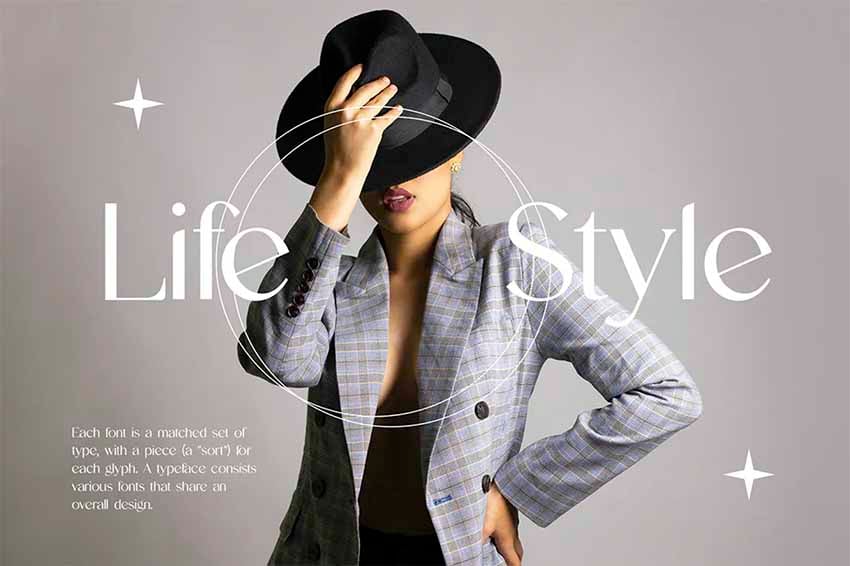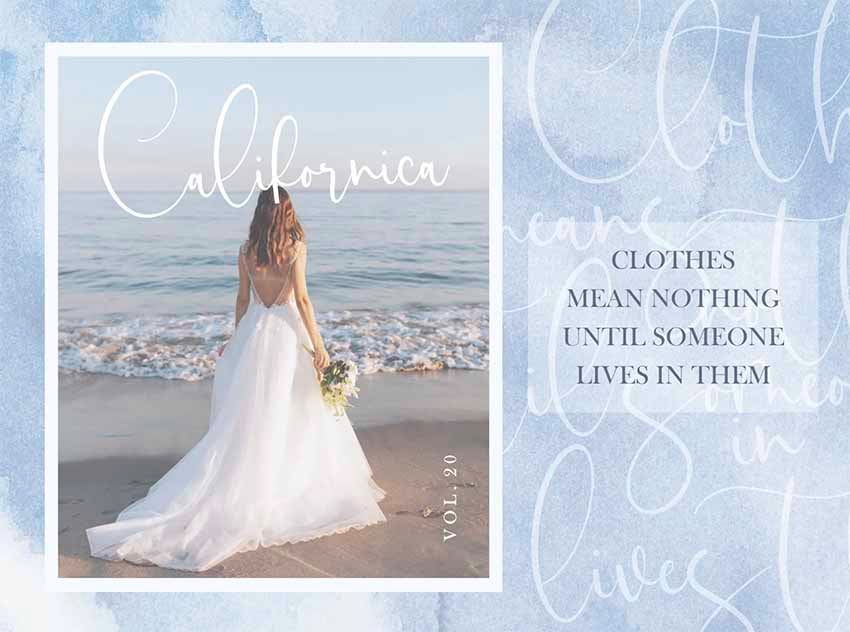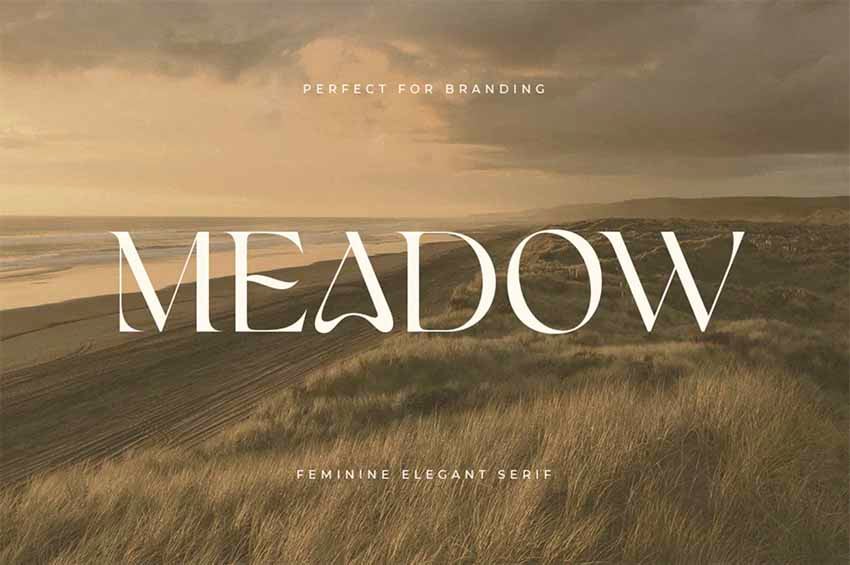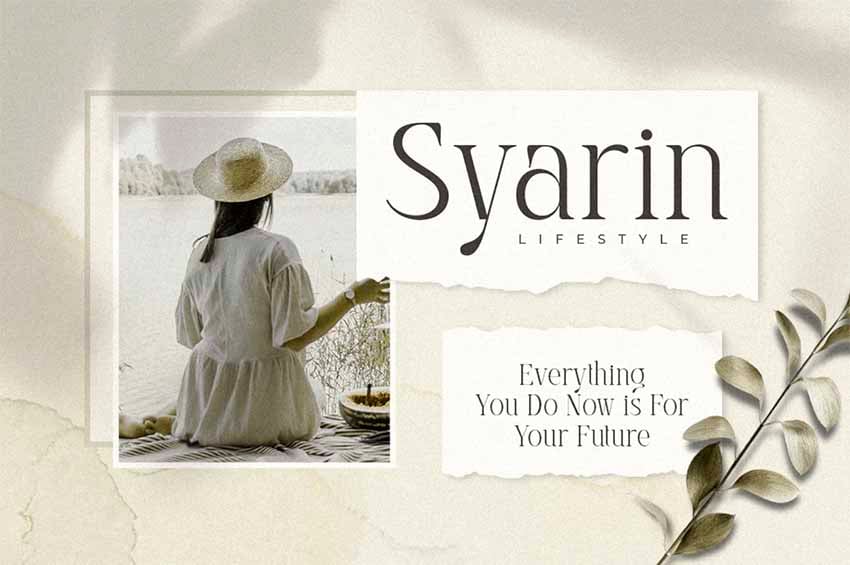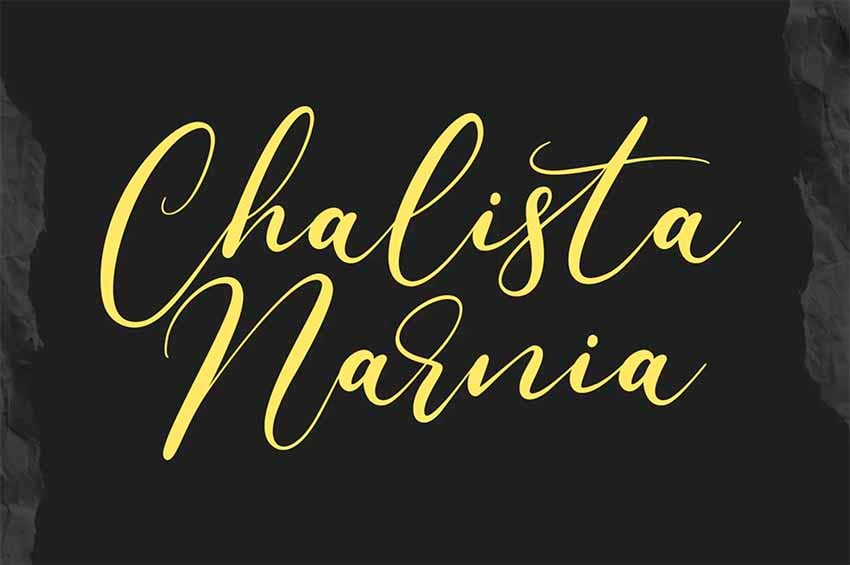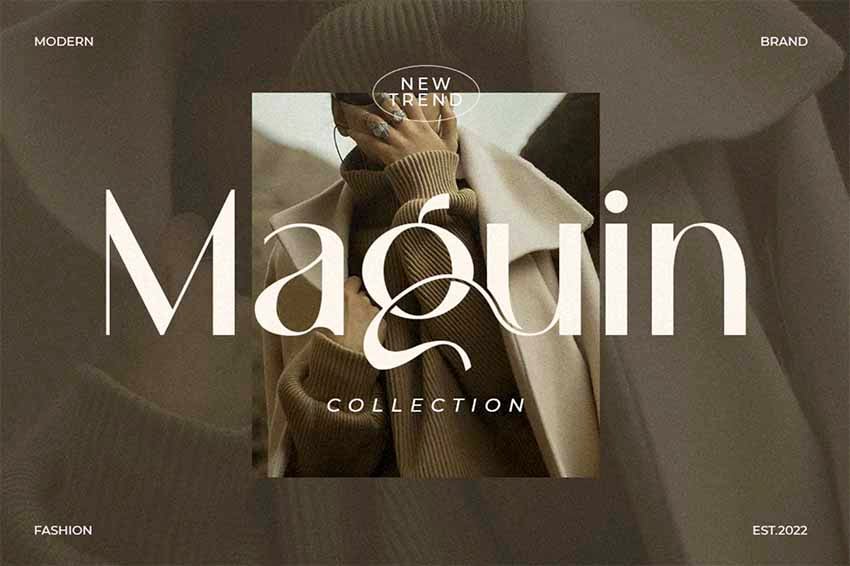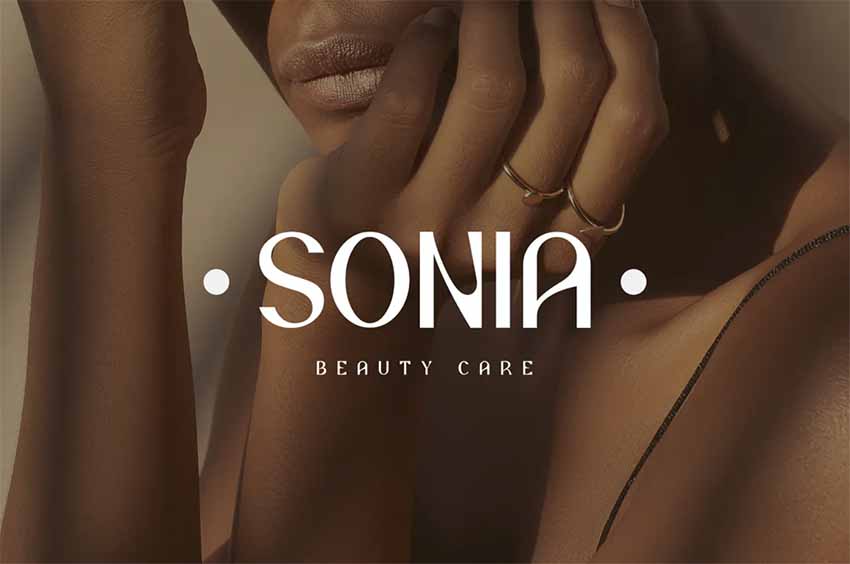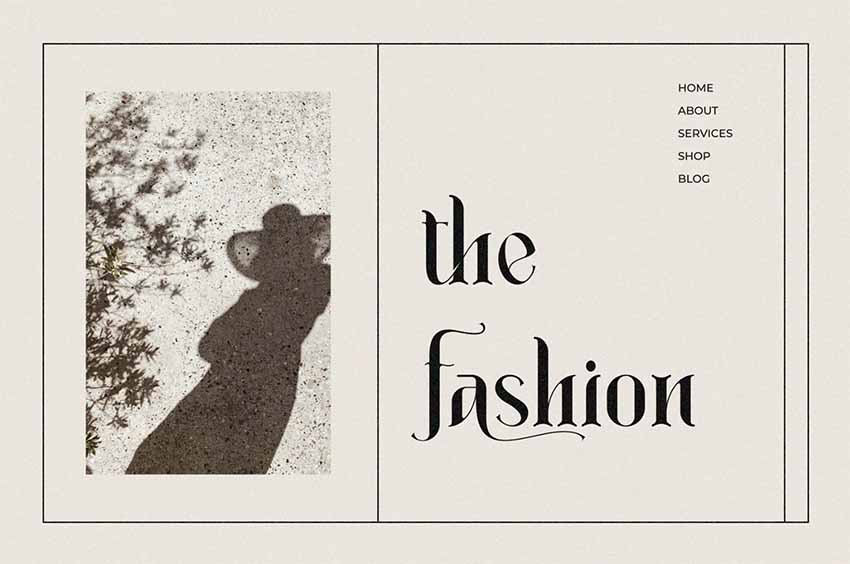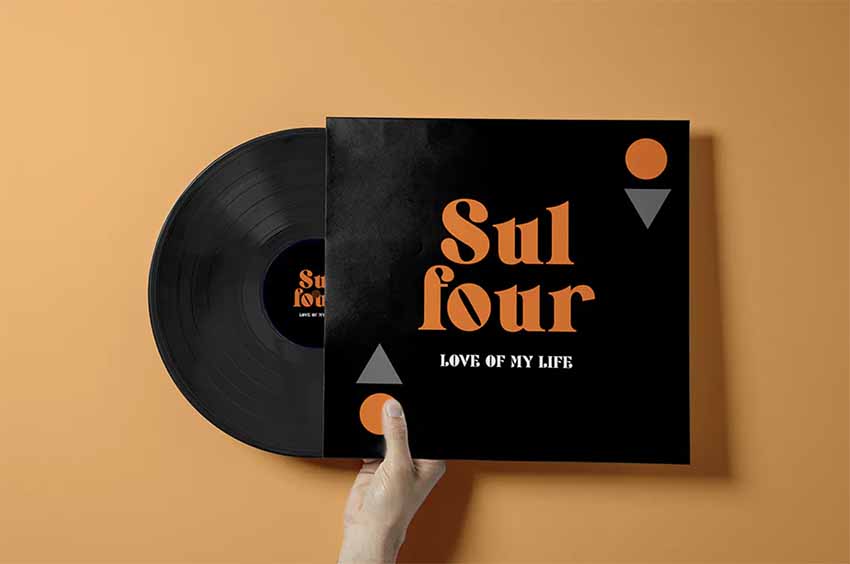
30+ Best Feminine Fonts
Rumie Feminine Modern Fonts
• With its gorgeous flowing lines, Rumie Feminine Modern Fonts is just the font you need when you are looking for a feminine touch.
• Perfect for all types of projects including branding, fashion, logos and more, Rumie includes alternative glyphs so you can create your own unique look.
Feminine Fonts
Emirya Feminine Fonts
• Nothing says feminine like Emirya Feminine Fonts.
• This stunning handwritten font is an excellent choice for social media, branding, greeting cards, and more.
• Emirya includes upper and lowercase characters, numbers, punctuation, ligatures, alternates, and multilingual support.
Caniago Unique Feminine Tattoo Fonts
Caniago Unique Feminine Tattoo Fonts
• Caniago Unique Feminine Tattoo Fonts is simple and elegant, making it the perfect choice for tattoos and so much else.
• Use Caniago whenever you need a special font that brings a touch of distinction to your projects.
Masita Girly Feminine Cursive Tattoo Fonts
Masita Girly Feminine Cursive Tattoo Fonts
• Need a script font that resembles handwriting?
• How about Masita Girly Feminine Cursive Tattoo Fonts?
• This stunning calligraphy-style font is perfect for unique tattoos, branding, quotes, social media, posters, and more.
Brandy Feminine Fonts
• Here's a completely different take on feminine fonts.
• Brandy Feminine Fonts is bold, stylish, and not afraid to call attention to itself.
• This gorgeous font is perfect for titles, headers, branding, brochures, signage, etc.
Marquise Pauline
Marquise Pauline Girly Feminine Cursive Tattoo Fonts
• Check out Marquise Pauline Girly Feminine Cursive Tattoo Fonts, a modern signature font that'll give you the one-of-a-kind look you're seeking.
• Marquise includes upper and lowercase characters, numbers, punctuation, ligatures, and alternates.
Alviona Modern Feminine Fonts
• Looking for a font that's modern and feminine at the same time?
• Look no further than Alviona Modern Feminine Fonts.
• Alviona is bold and stylish and a great choice for branding, logos, posters, signage, titles, and more.
Androgino Feminine Cursive Tattoo Fonts
• Androgino Feminine Cursive Tattoo Fonts is all about getting gorgeous results for your projects.
• Aside from the usual set of upper and lowercase characters, Androgino includes several ligatures so that you can create your own unique look.
Quick Peachy Feminine Fonts
• Looking for a special font to bring a feminine touch to a branding project?
• Quick Peachy Feminine Fonts is a great choice.
• This fresh, modern font includes ligatures and stylistic alternates to help you create an authentic and unique look.
Anistton Feminine Modern Fonts
• Anistton Feminine Modern Fonts is a quirky signature font that will give your designs an authentic, hand-crafted feel.
• Anistton is an excellent choice when you need feminine handwriting fonts for signatures, branding, stationery, and other designs.
Saxvon Serif Feminine Modern Fonts
• What's great about the Saxvon Serif Feminine Modern Fonts is that it combines simplicity and style to offer the perfect feminine font for a number of projects.
• Use it for your headers, titles, posters, merchandising, branding, and more.
Consent Feminine Tattoo Fonts
• Looking for 'that font' for your special tattoo?
• Look no further than Consent Feminine Tattoo Fonts.
• This modern font isn't just perfect for tattoos—it'll also work a treat for branding, invitations, stationery, posters, and more.
Highdream Feminine Tattoo Fonts
• Bring the strength and boldness of the feminine touch to your project with Highdream Feminine Tattoo Fonts.
• Use for your tattoos as well as projects like album covers, movie titles, logos, and branding.
Girly Feminine Cursive Tattoo Fonts
• Girly Feminine Cursive Tattoo Fonts is one of those fonts that perfectly recreates the inconsistency of handwriting.
• This quirky font offers upper and lowercase characters, numbers, and punctuation, as well as loads of stylistic alternates and ligatures.
Ballein Feminine Fonts
• Ballein Feminine Fonts is another stunning and unique font that you should consider for upcoming projects.
• This stunning font includes upper and lowercase characters, numbers, punctuation, ligatures, alternates, and multilingual support.
Juvenilia Feminine Modern Fonts
• When you need a versatile modern font, choose Juvenilia Feminine Modern Font.
• This beautiful font would work well for a wide range of projects, from magazine and book covers to branding, headers, clothing, packaging design, and more.
Absolute Feminine Modern Fonts
• The irresistible Absolute Feminine Modern Fonts is one you should have in your library.
• Use it whenever you need an elegant font with a classic look for business or personal use.
Grateful Tattoo Fonts Cursive Feminine
• This fabulous handwritten font offers a moving baseline that makes it a lively and irresistible choice of fonts.
• Use it for your signature or for branding, merchandising, etc.
Grandstand Unique Feminine Tattoo Fonts
• Why not try Grandstand Unique Feminine Tattoo Fonts for your next design project?
• This fabulous font offers upperclass characters that can be used to create truly iconic titles, headers, and more.
Salvager Feminine Modern Fonts
• Salvager Feminine Modern Fonts is elegance and charm personified.
• Use this wonderful font for magazine covers, branding, titles, headers, package design, and other stand-out projects.
Woodlark Feminine Tattoo Fonts
• You can't go wrong with the Woodlark Feminine Tattoo Fonts.
• This display font features uppercase characters only and is the perfect display font for tattoos,  as well as titles, posters, branding, logos, etc.
Romaunt Gaolines Feminine Tattoo Fonts
• Romaunt Gaolines Feminine Tattoo Fonts is a terrific font that can be used for a number of projects.
• Use this display font for standout tattoos, branding, magazine covers, and more.
Big Bang Feminine Fonts
• Big Bang Feminine Fonts was specifically created for logos and branding.
• Aside from the usual upper and lower case characters, Big Bang includes unique shapes to help you create your own unique look.
Nova Unique Feminine Tattoo Fonts
Nova Unique Feminine Tattoo Fonts
• Looking for a feminine font for your next project?
• How about Nova Unique Feminine Tattoo Fonts?
• This cool display font will complement projects like web design, branding, social media posts, and of course tattoos.
Birdwatch Tattoo Fonts Cursive Feminine
• Nothing says feminine like Birdwatch Tattoo Fonts Cursive Feminine.
• This beautiful script font includes upper and lowercase characters, numbers, punctuation, ligatures, alternates, and multilingual support.
Famous Tattoo Fonts Cursive Feminine
• If you're looking for a font full of curls and whirls, Famous Tattoo Fonts Cursive Feminine is for you.
• That's because this fabulous sans serif includes plenty of extra ligatures in unique shapes that you can use to bring your own special touch to your project.
Alice Unique Feminine Tattoo Fonts
• How awesome is Alice Unique Feminine Tattoo Fonts? Very, I'd say.
• Use this simple but elegant serif font for your next important project.
• It includes upper and lowercase characters, numbers, punctuation, ligatures, alternates, and multilingual support.
Mahalini Feminine Modern Fonts
• Get your feminine groove on with Mahalini Feminine Modern Fonts.
• This lovely serif font won't disappoint when you're looking for an elegant and unforgettable font for your next design.
• It includes four different weights as well as upper and lowercase characters, numbers, and punctuation.
Hollyfur Tattoo Fonts Cursive Feminine
• How about Hollyfur Tattoo Fonts Cursive Feminine?
• This is a font you just can't go wrong with.
• Offering a full complement of upper and lowercase characters, numbers, punctuation, ligatures, and alternates, Hollyfur is a font for all occasions.
Milky Unique Feminine Tattoo Fonts
• One of the best feminine fonts offered at Envato Elements, Milky Unique Feminine Tattoo Fonts is just what you need when you're looking for a stand-out font.
• Milky blends thick and thin strokes to create a modern and dynamic font that's a great choice for branding, logos, signage, titles, etc.
Chaviera Pro Feminine Modern Fonts
• Chaviera Pro Feminine Modern Fonts is an excellent choice for various projects.
• From logos and branding to wedding designs, social media posts, advertisements and more, Chaviera won't disappoint.
• This stunning font offers upper and lowercase characters, numbers, punctuation, ligatures, and alternates.
San Miguel Unique Feminine Tattoo Fonts
• It doesn't get more stylish than San Miguel Unique Feminine Tattoo Fonts.
• This gorgeous sans serif was created with plenty of extra ligatures and alternatives so that you can create letters that are unique to your project.
• Have fun creating your own look with this fab font.
Choose Your Favourite Feminine Font
Now you know just where to find the best feminine fonts when you need them, head to Envato Elements and download your favourites today.
Here are more top resources and tutorials to try from Envato Tuts+:
• 22 Groovy Psychedelic Fonts
Daisy Ein
07 Jun 2023
• 40 Best Rounded Sans Serif Fonts (Bold Rounded Fonts)
Nona Blackman
16 Nov 2023
• 36 Best New Fonts for 2024
Nona Blackman